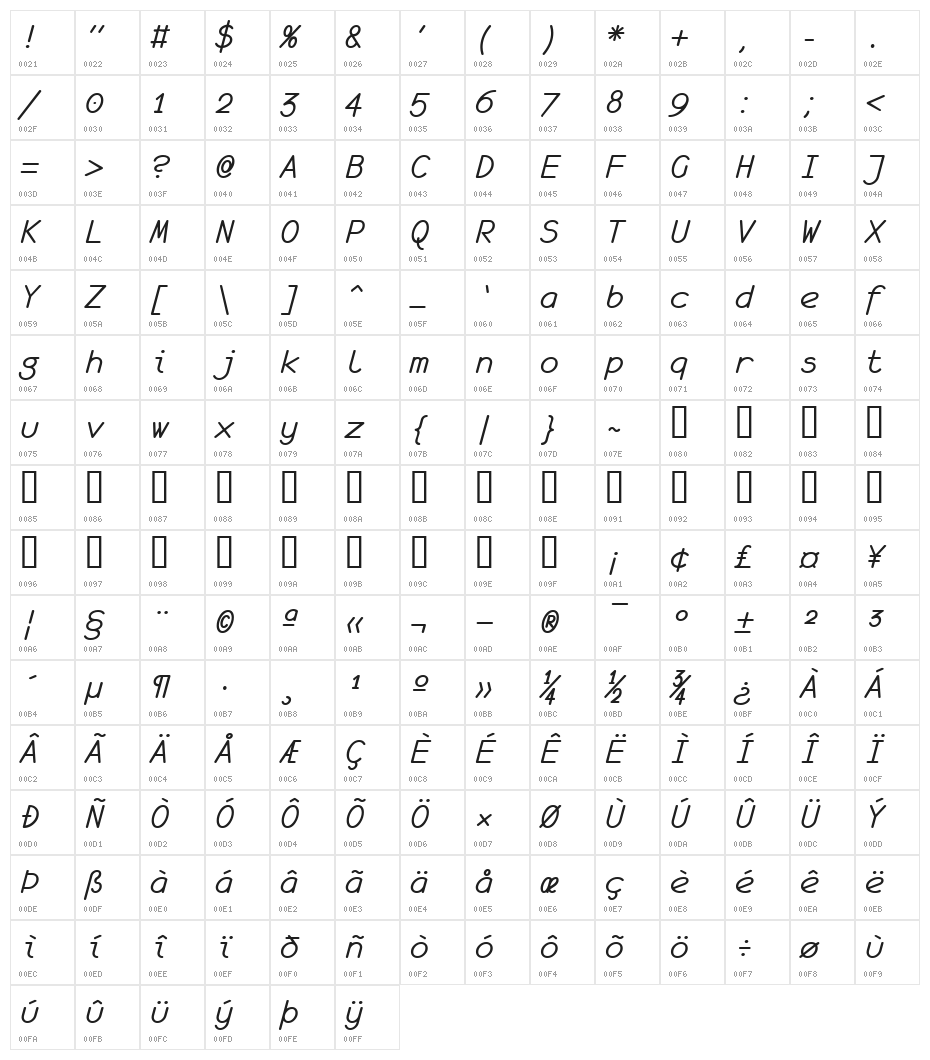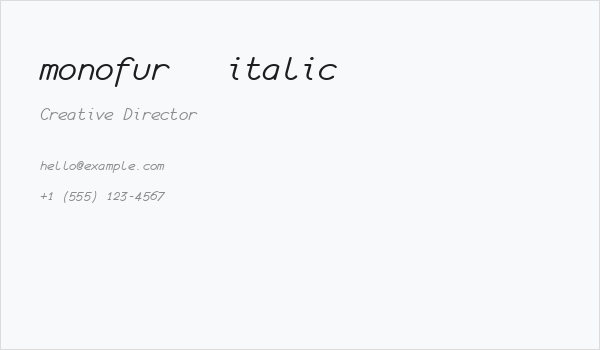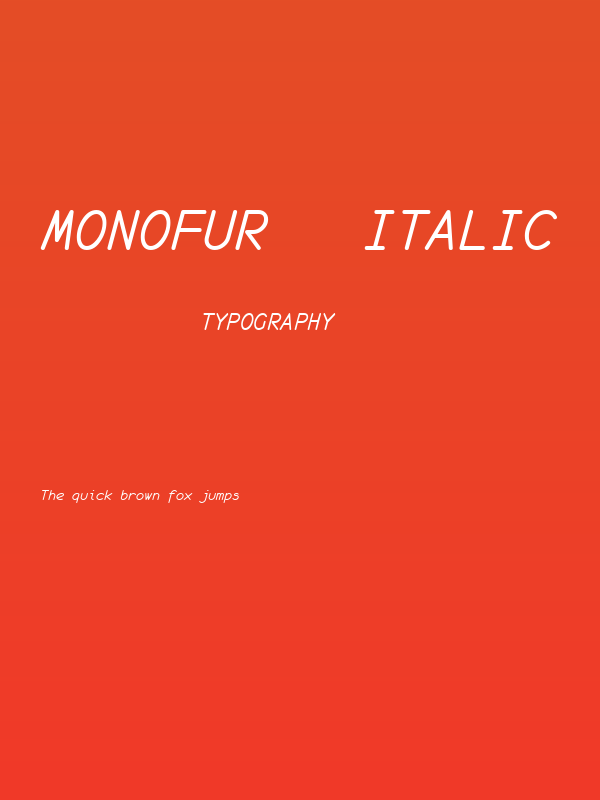
monofur italic Font
monofur italic Description
This font features a monospaced design with a playful and informal style. Each character is evenly spaced, maintaining a consistent width that is characteristic of monospaced fonts. The italic slant adds a dynamic and casual feel, making it suitable for creative projects. The strokes are smooth and rounded, providing a friendly and approachable appearance. The font includes a full set of uppercase and lowercase letters, numerals, and a variety of special characters, ensuring versatility in usage. Its unique style makes it stand out while still being legible and functional.
| Use Case | Coding, Creative projects, Informal branding |
| Proposed Projects | Ideal for coding environments, creative writing, digital art, and informal branding. |